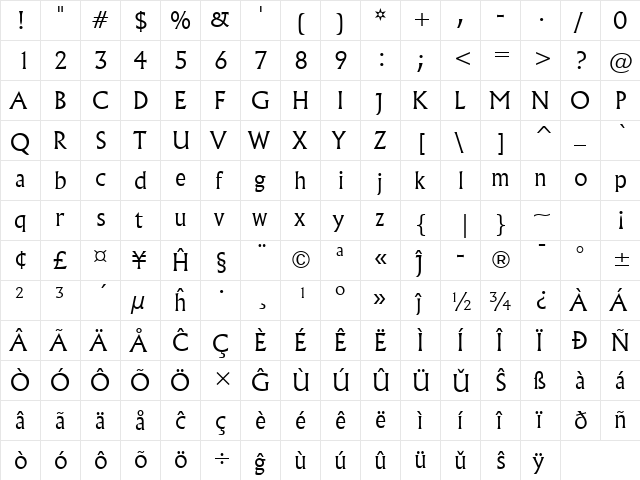
Flareserif821 Lt BT Eo Light
Design Context for Flareserif821 Lt BT Eo Typeface
Flareserif821 Lt BT Eo brings classic typographic sensibility to the table — its serifs and measured letterforms reflect centuries of print heritage. The delicate stroke weight brings airiness and refinement to layouts.